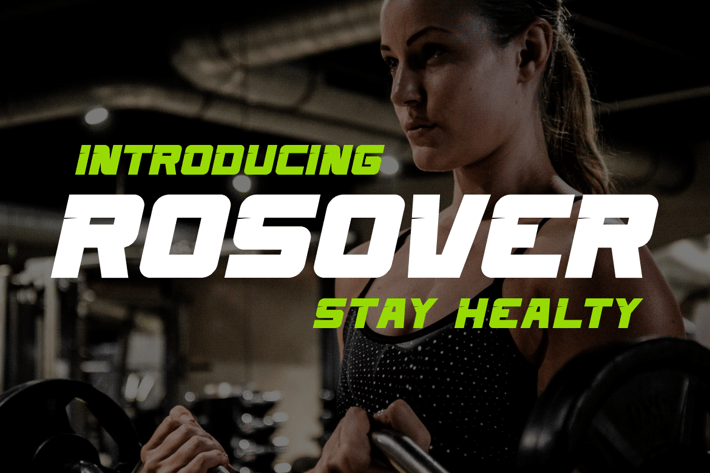
Rosover - Sport Font
Rosover Font is unique . Ready to use for your design like labeling, movie sceen, poster, movie title, gigs, album covers, logos, and much more.